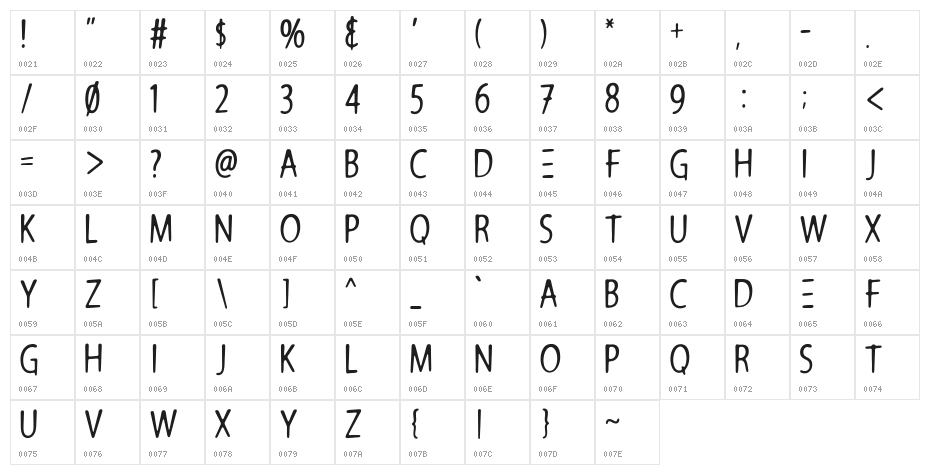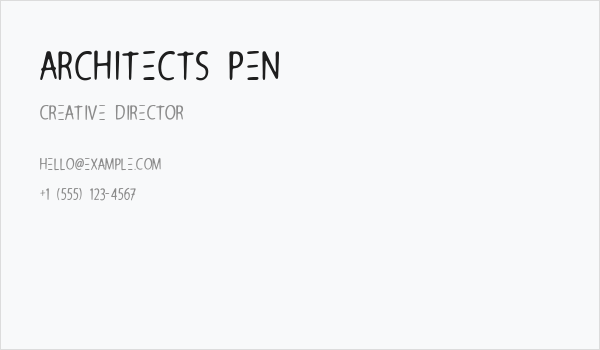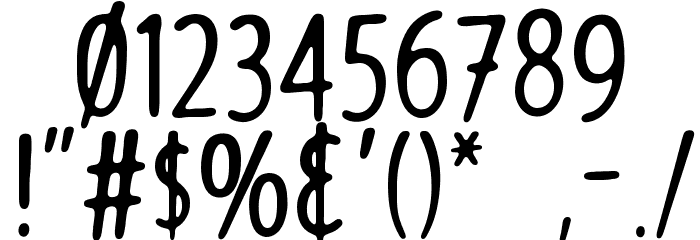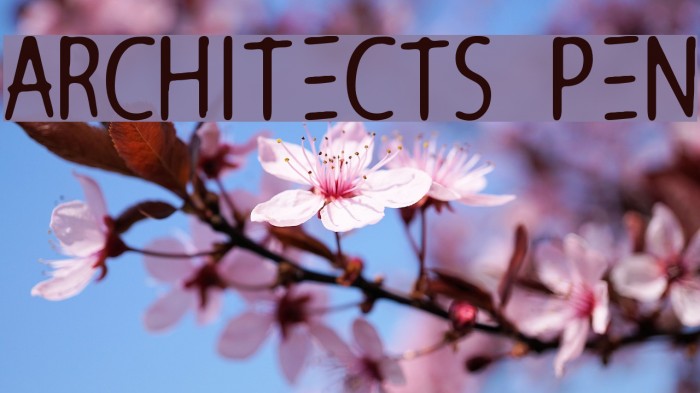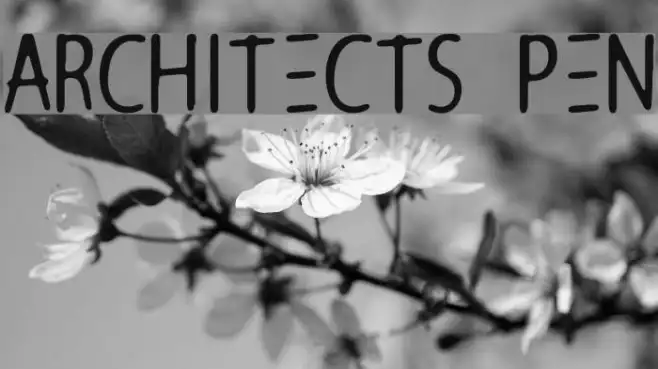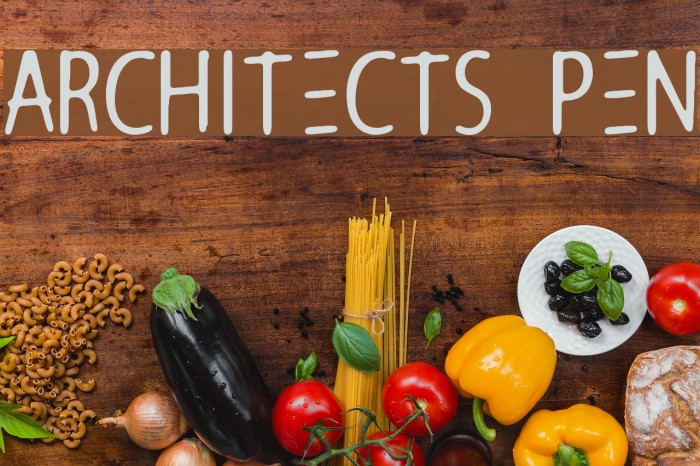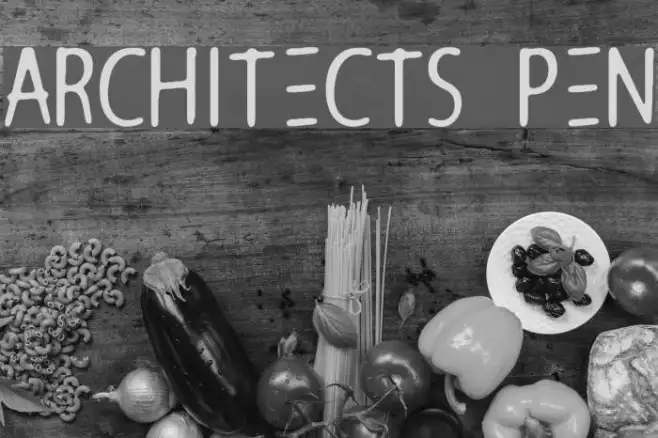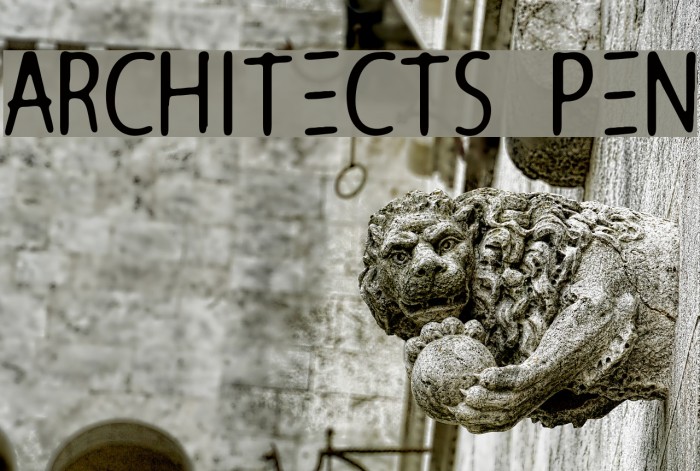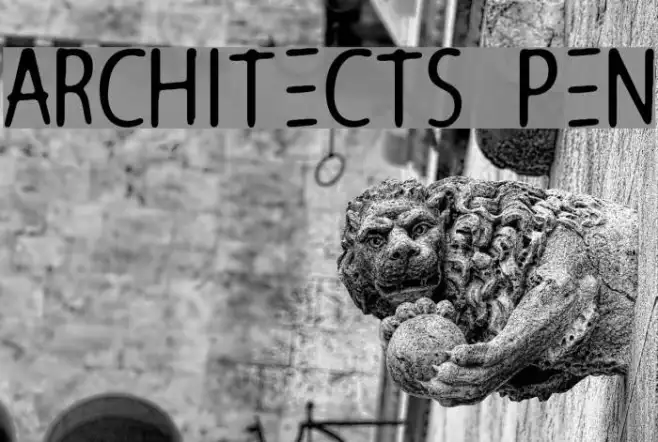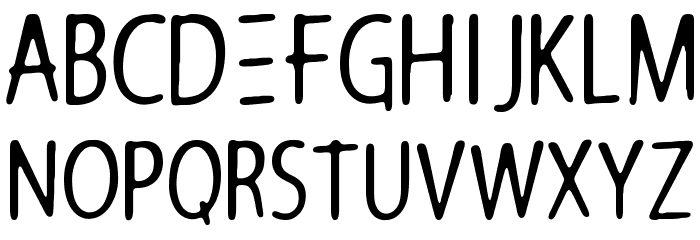
Architects Pen Font
Architects Pen Description
This font embodies a hand-drawn, architectural style that mimics the precise yet artistic strokes of an architect's pen. The characters are slightly elongated with a consistent stroke width, giving it a uniform appearance. The uppercase letters are bold and prominent, while the lowercase letters maintain a similar style but with a slightly softer touch. Numbers and special characters are crafted with the same attention to detail, ensuring a cohesive look across all glyphs. The font's design is clean and legible, making it suitable for both artistic and professional applications. Its unique style is reminiscent of technical drawings, yet it retains a playful and approachable feel.
| Use Case | Headlines, Logos, Artistic designs |
| Proposed Projects | Ideal for architectural presentations, creative projects, branding, and artistic designs. |